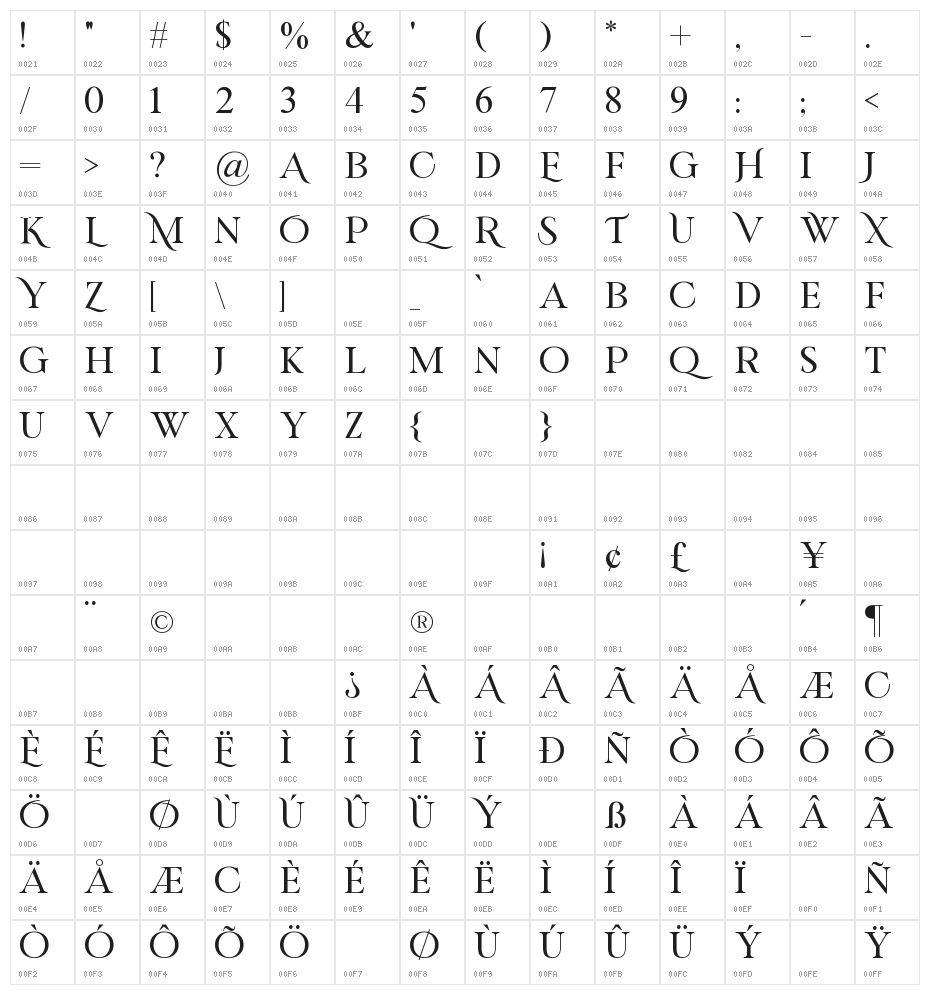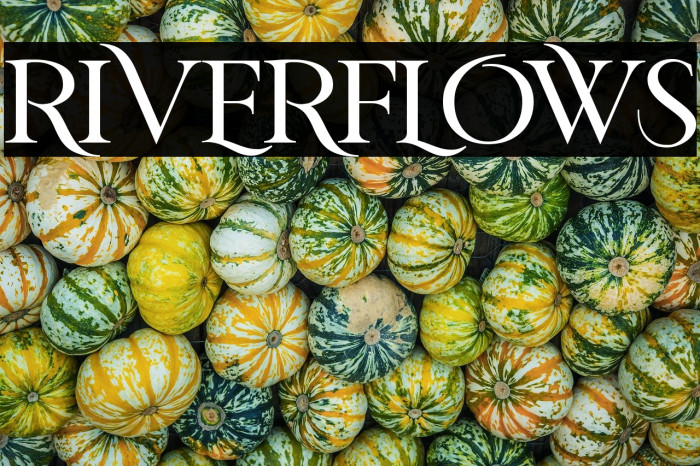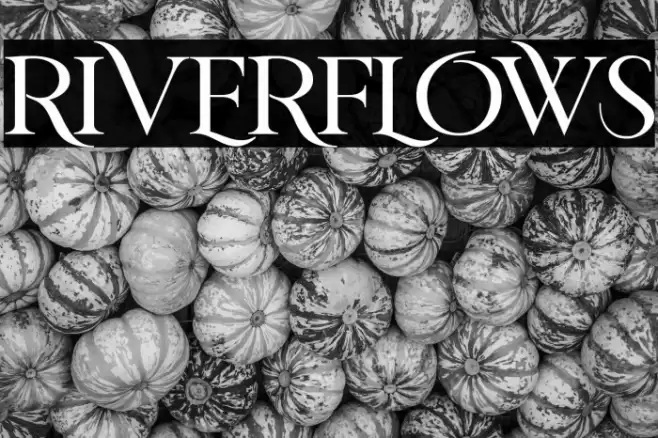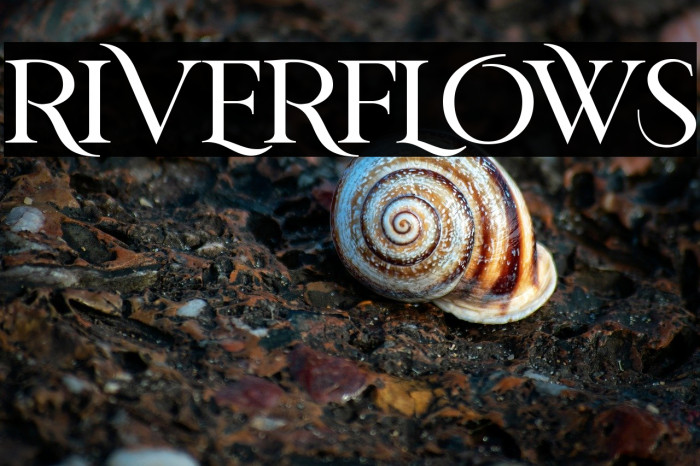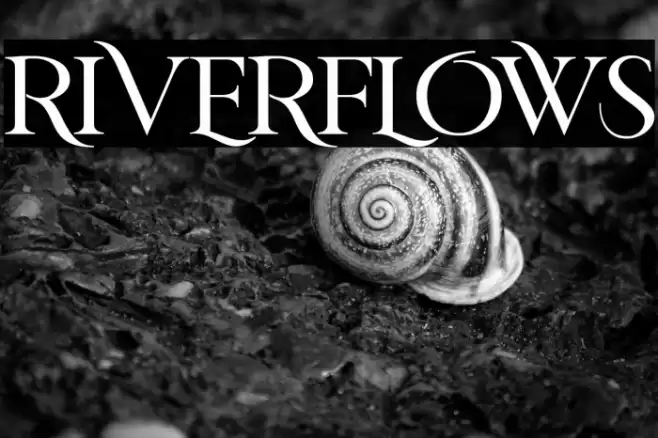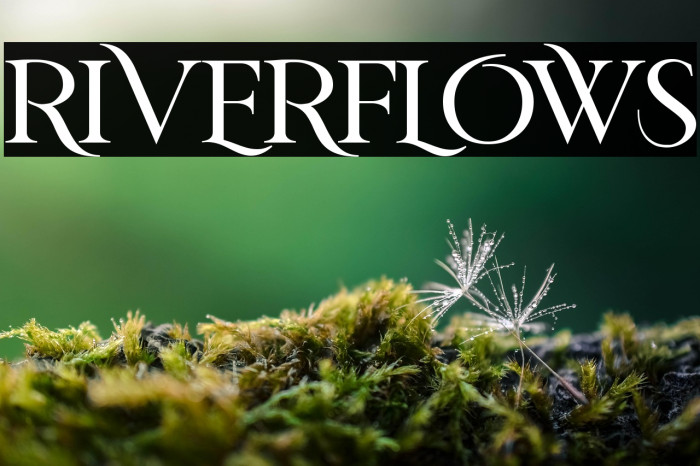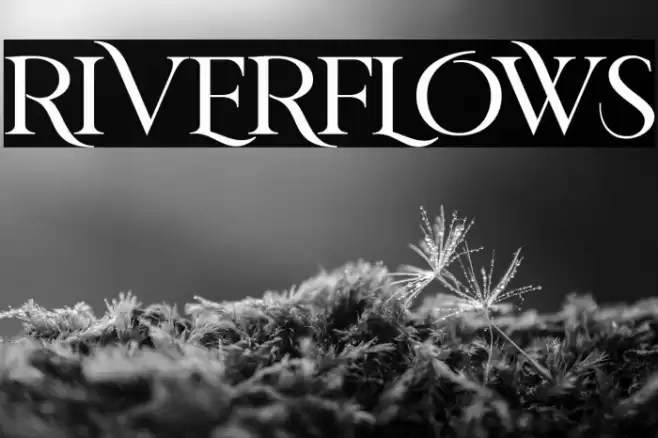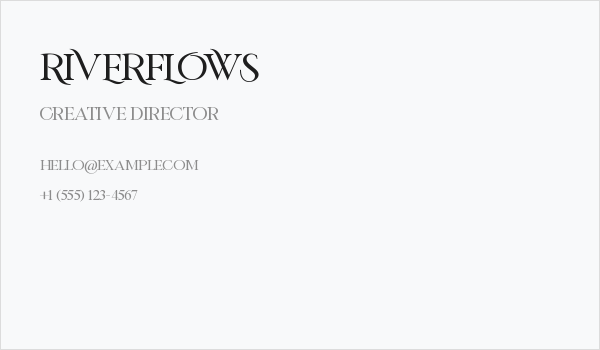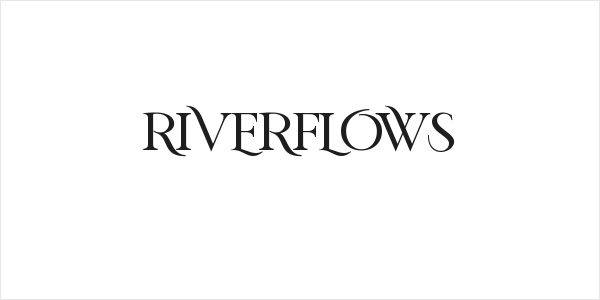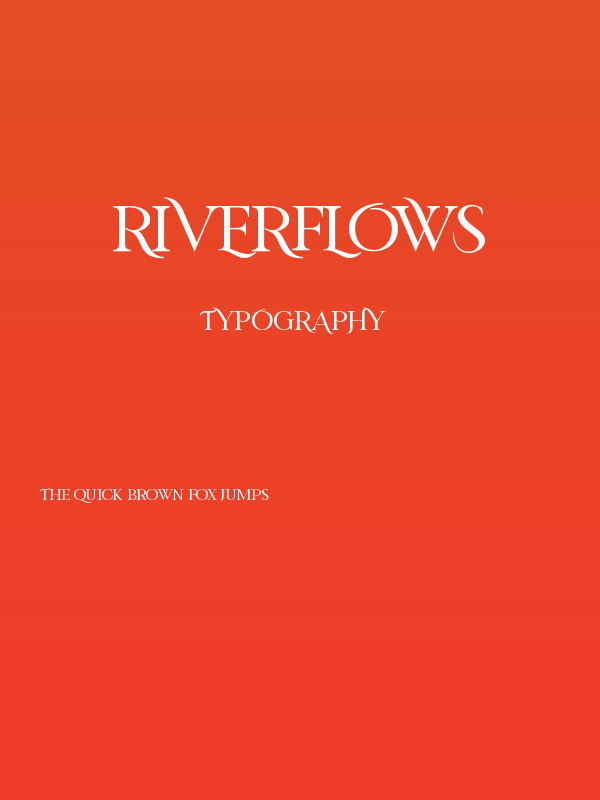
RIVERFLOWS Font
RIVERFLOWS Description
This font features elegant, flowing serifs with a classic and sophisticated appearance. The characters are designed with a high contrast between thick and thin strokes, giving it a refined and polished look. The uppercase letters exhibit a graceful curvature, particularly noticeable in letters like 'Q' and 'R', which adds a touch of flair. The numerals are equally stylish, maintaining the font's overall elegance. Special characters are crafted with the same attention to detail, ensuring consistency throughout. This font is ideal for projects that require a touch of class and sophistication.
| Proposed Projects | Ideal for luxury branding, wedding invitations, editorial design, and high-end product packaging. |